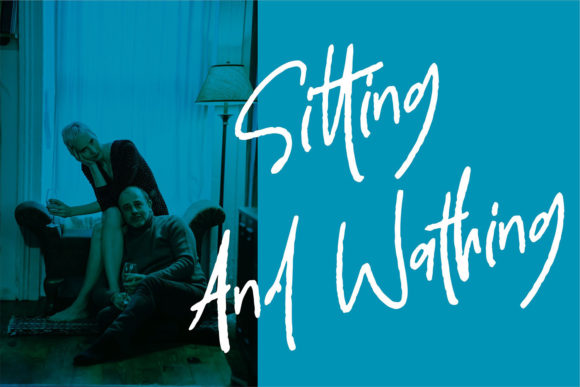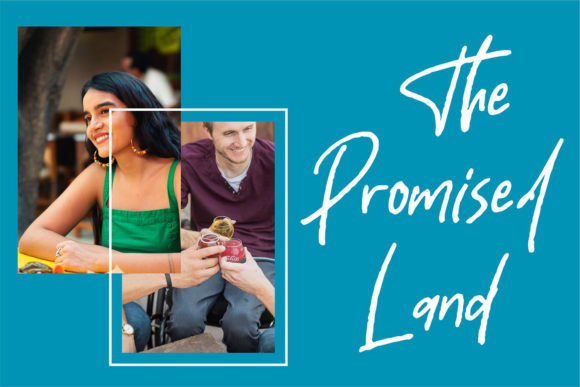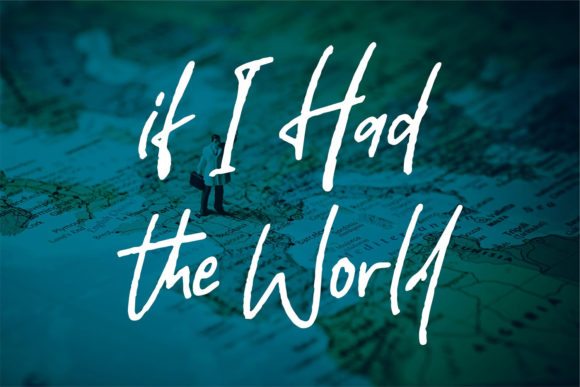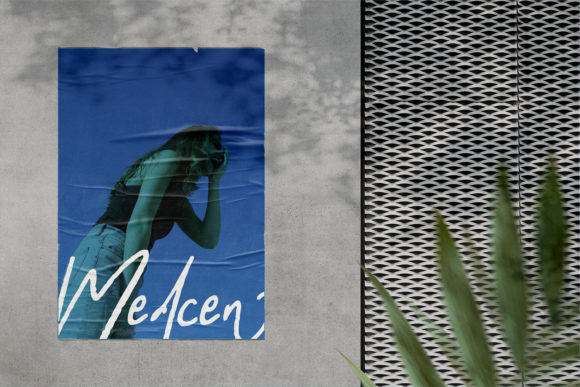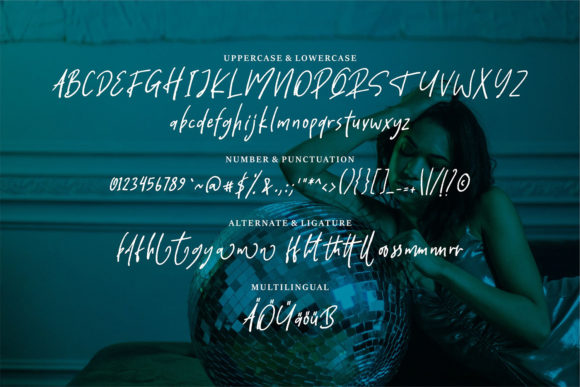
Introduction to Mathial Font
Mathial is a laid-back, asymmetrical and brushed handwritten font.
It features uniquely shaped letters, and as a result, it will easily match a wide range of creations that require a distinct touch .
Key Features of Mathial Font